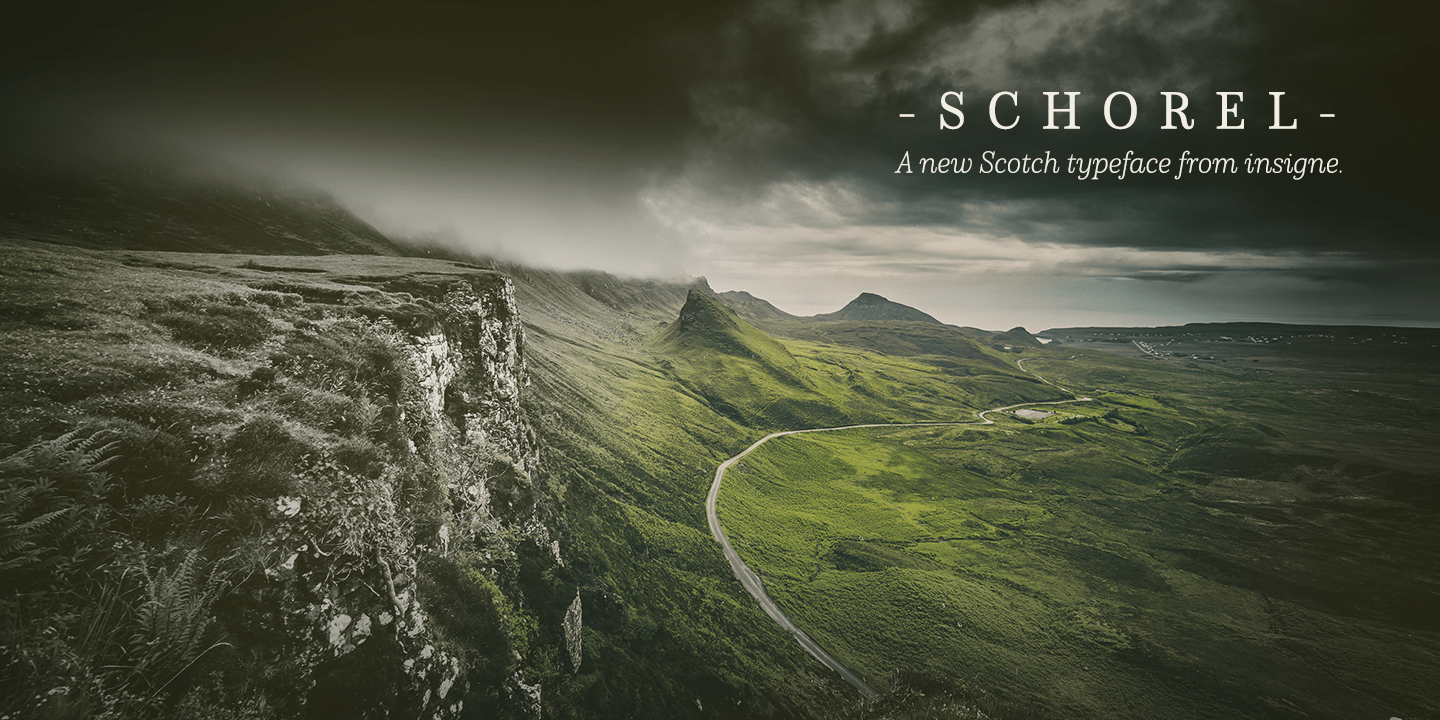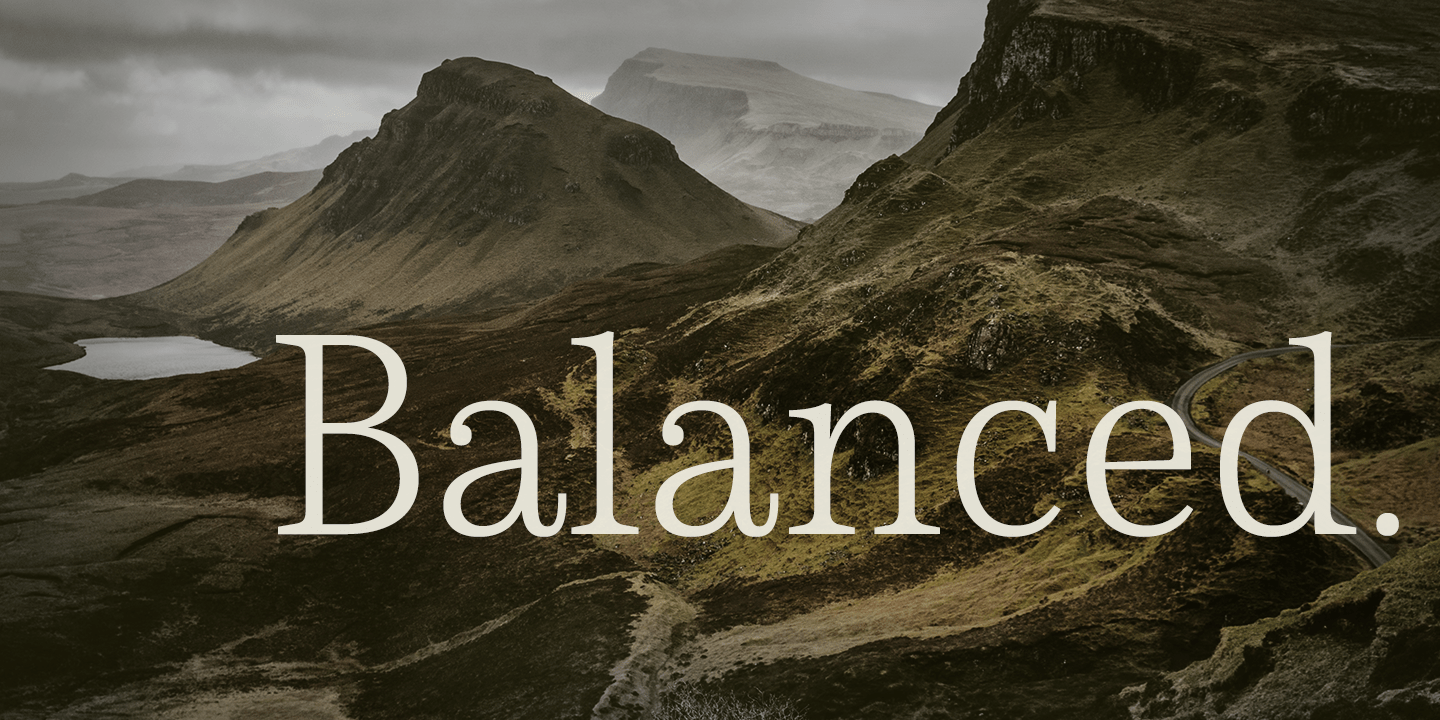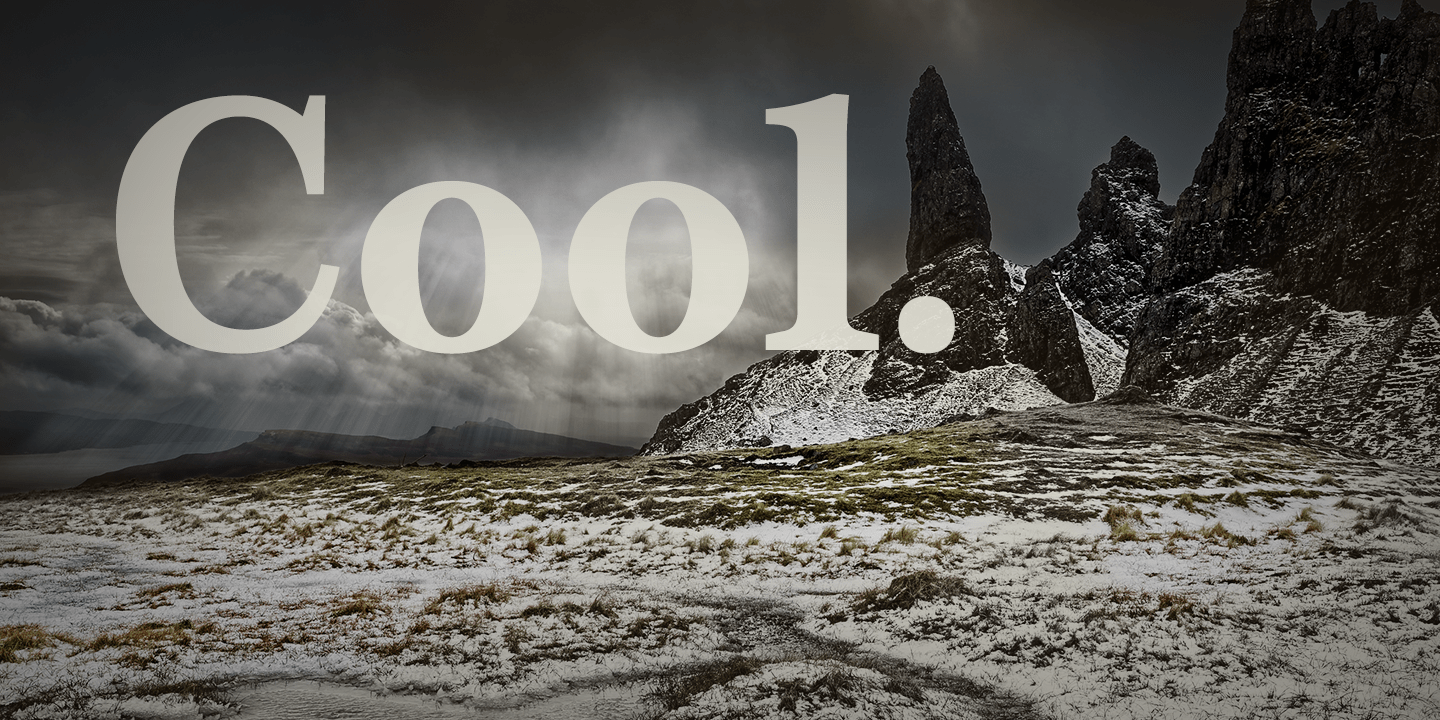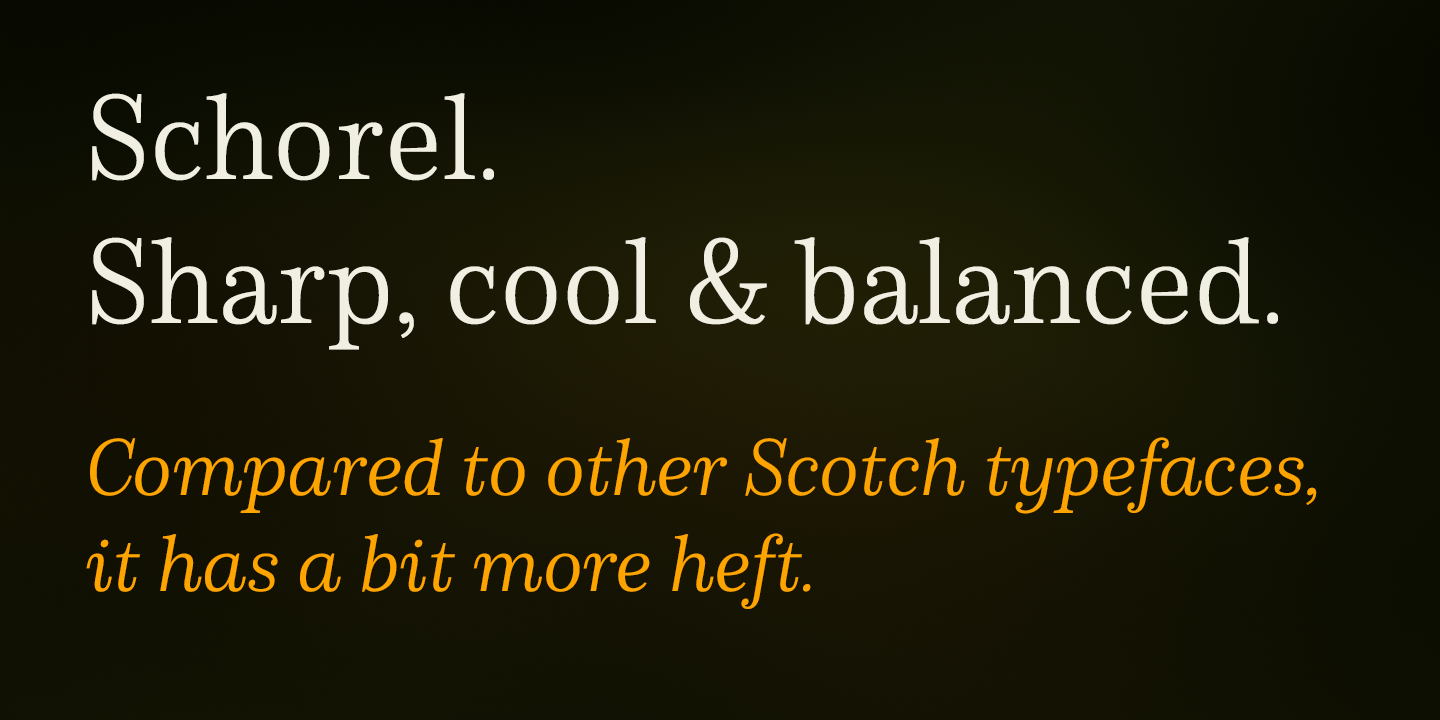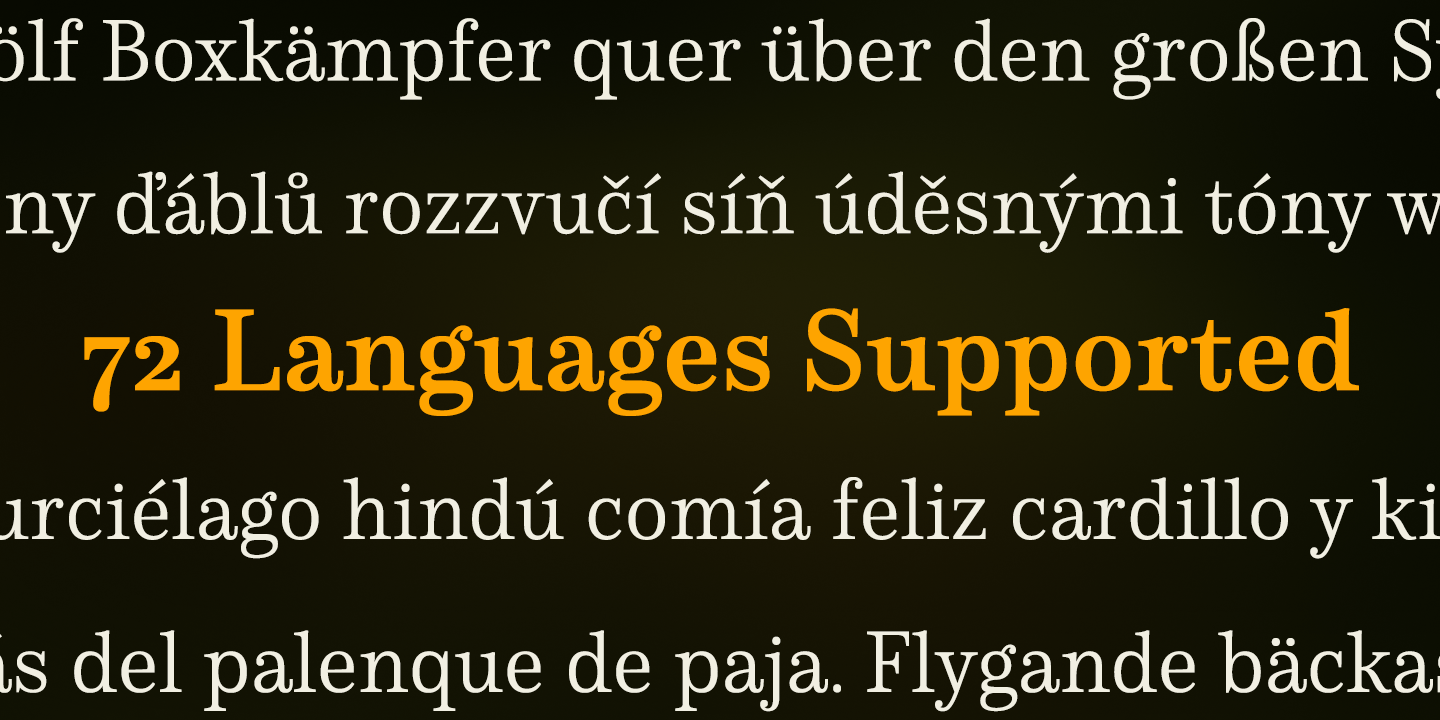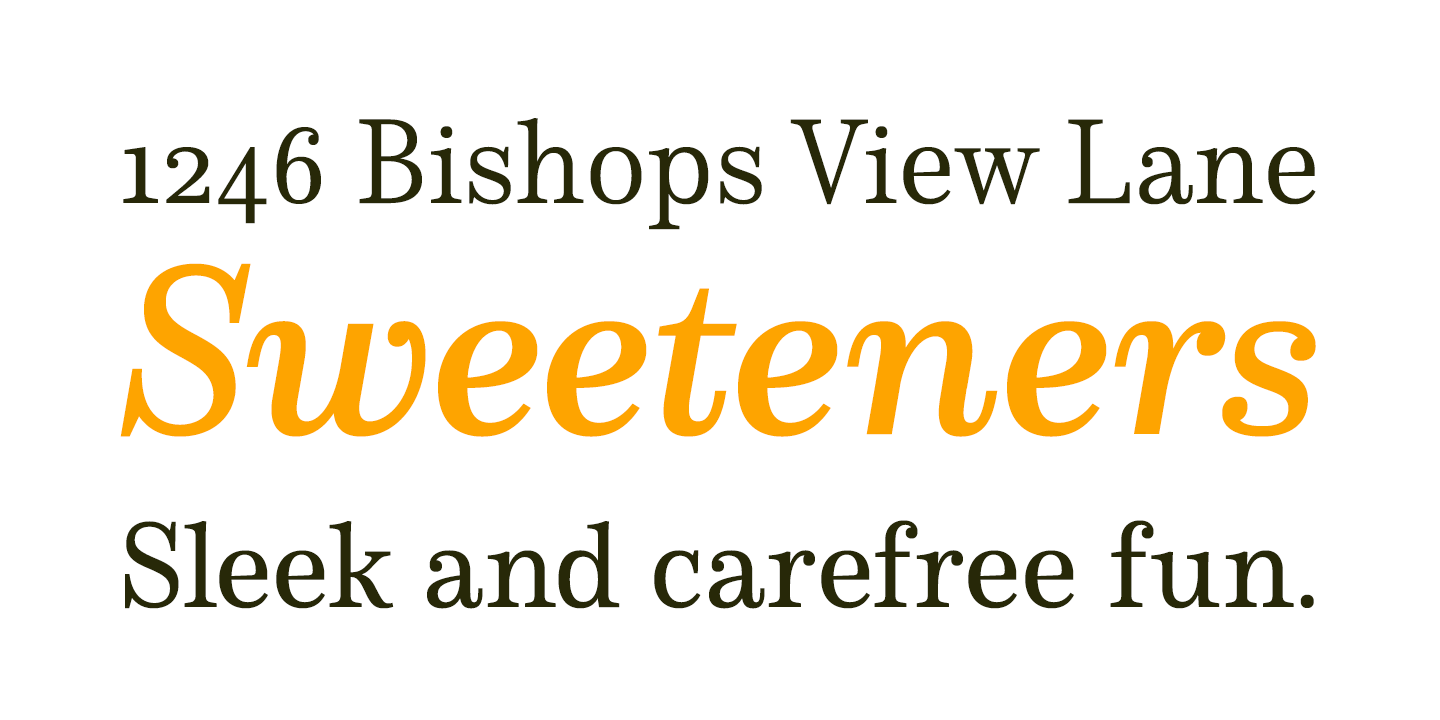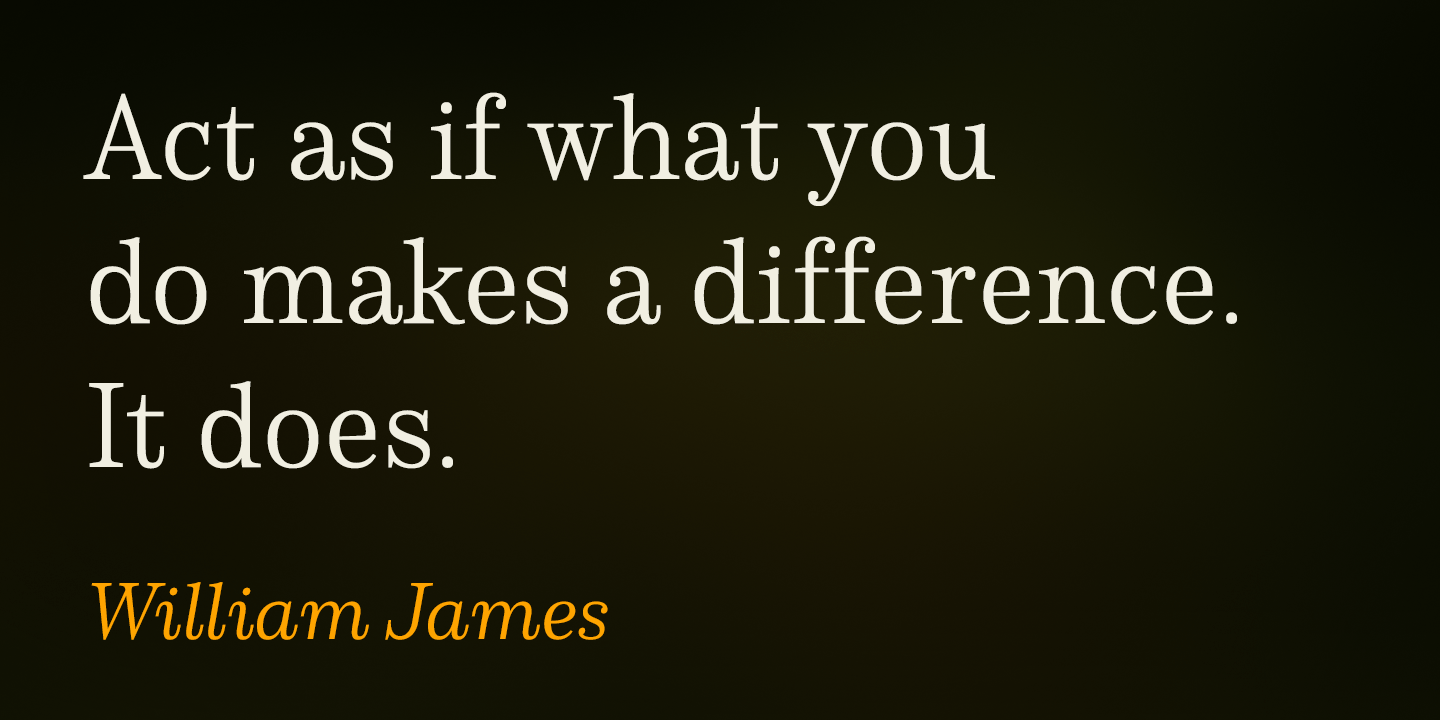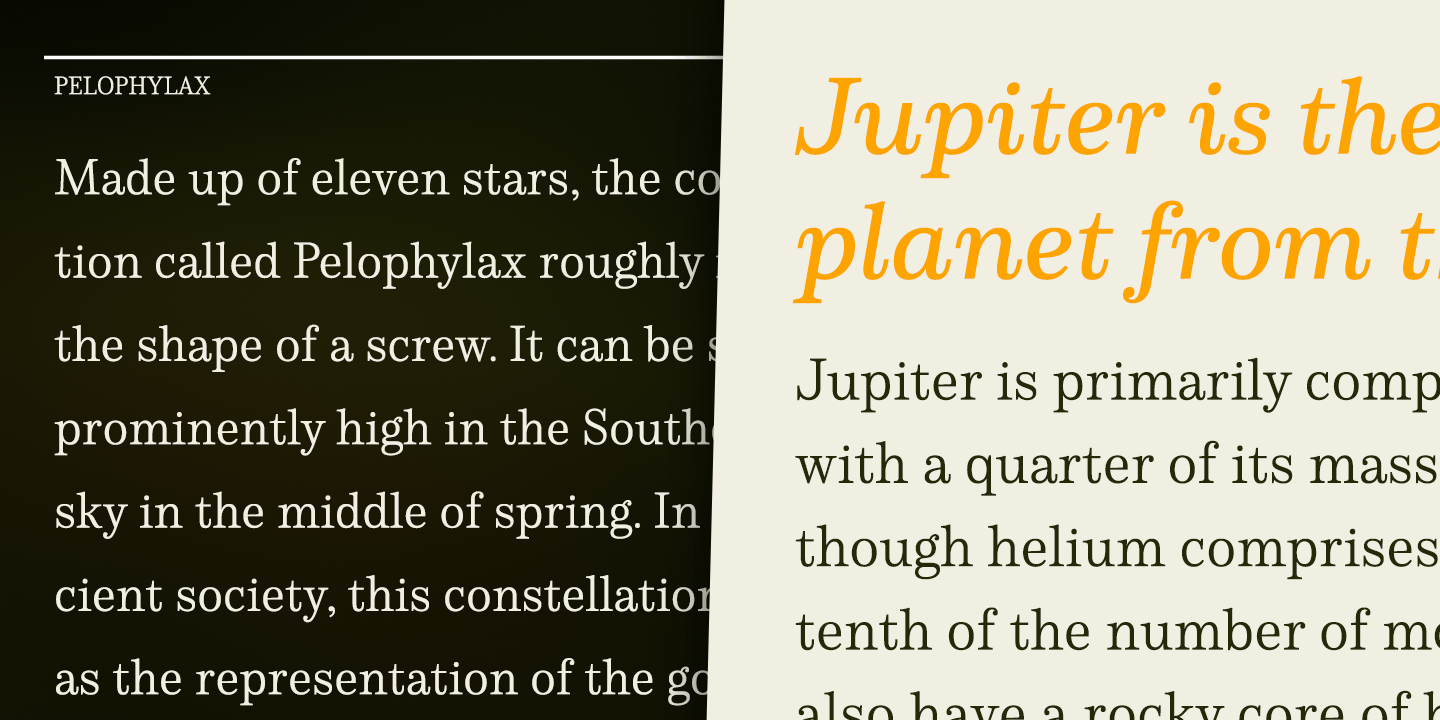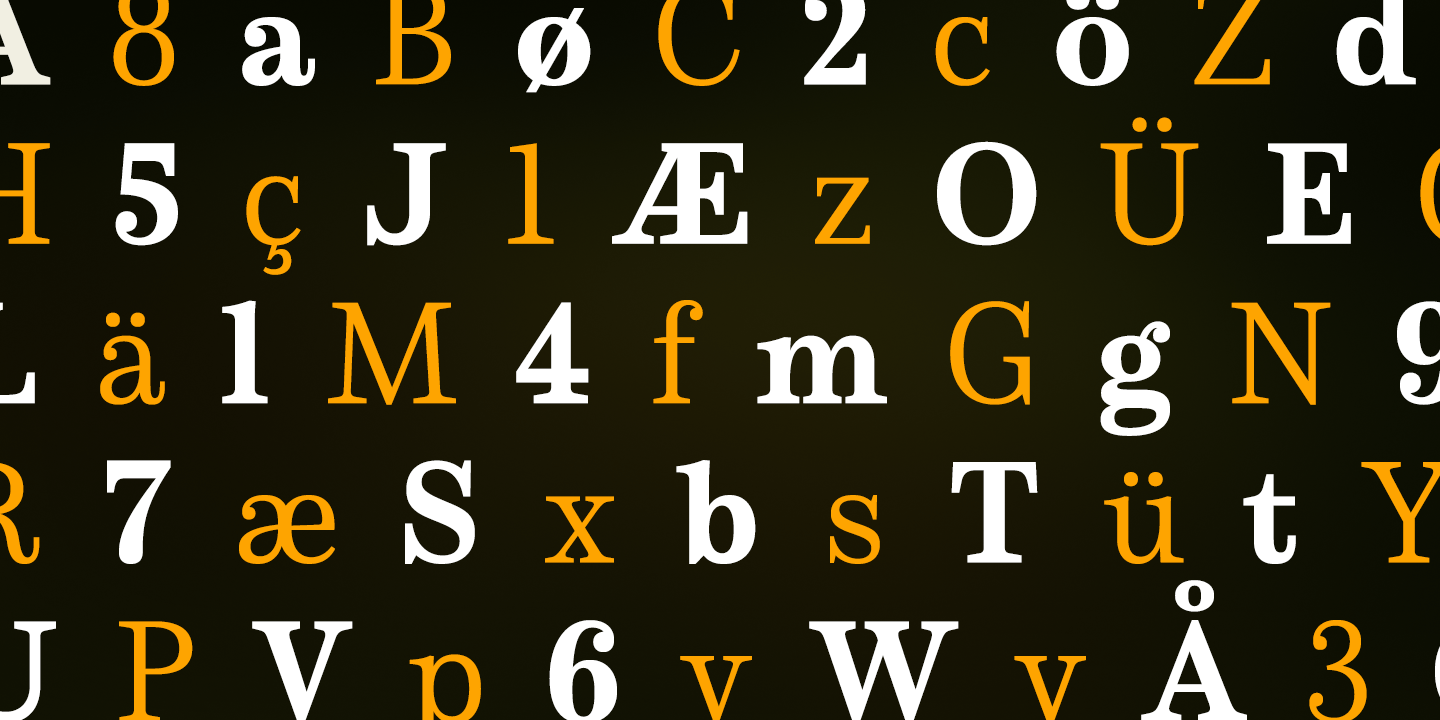
Schorel
Scotch typefaces initially come from Scottish foundries, popular in the United States in the late 18th century. This beautiful genre of type grew in popularity through the Victorian era and most of the 20th century to make regular appearance in books, magazines, newspapers, and advertisements.
Schorel itself, with its moderate contrast and organic design, features short ascenders and descenders and calligraphic italics. The design features a few ball terminals, but mostly touts its bracket serifs, which come to a sharp point. The typeface, ideal for medium to large sizes, is useful for both headlines and text, carefully created for both print and screen.
This OpenType font supports most Latin-based languages. Schorel has nine weights and a true italic, and many special features such as small caps, fractions, old-style figures, and numerous extras complete each font. It's every bit a delight to your reader's eye."